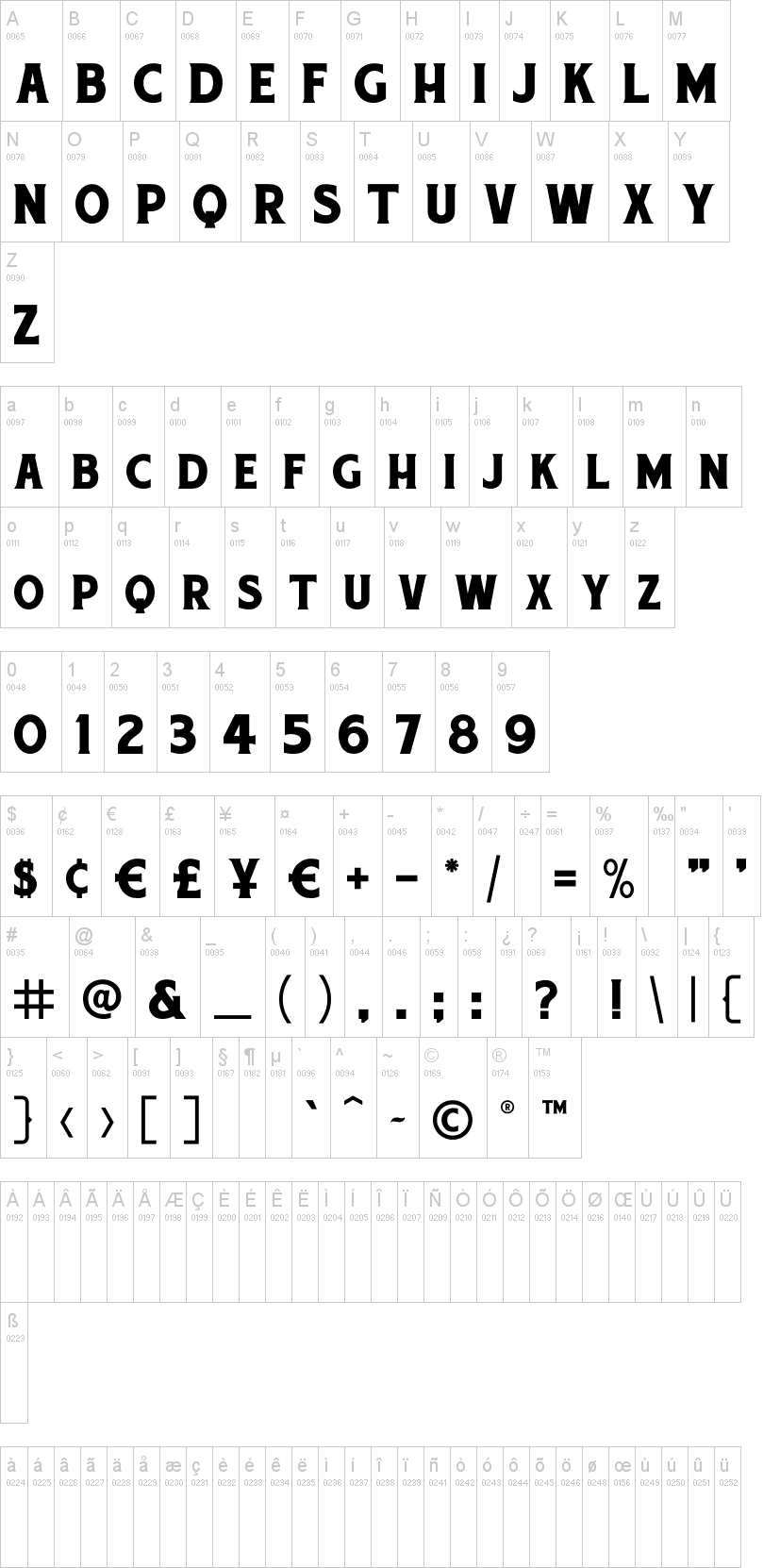
Note of the authorChuck Noon is a heavy & block font/typeface inspired by old school advertising letters. Available in uppercase, lowercase, numerals, punctuations & other characters